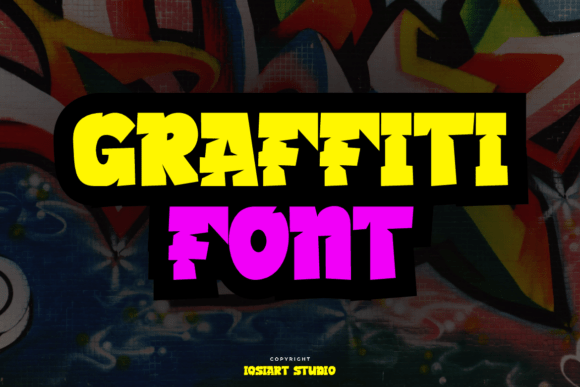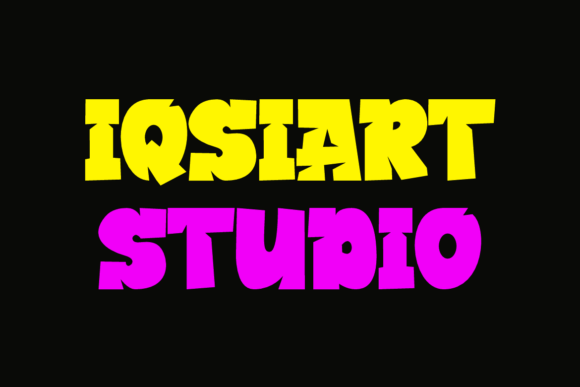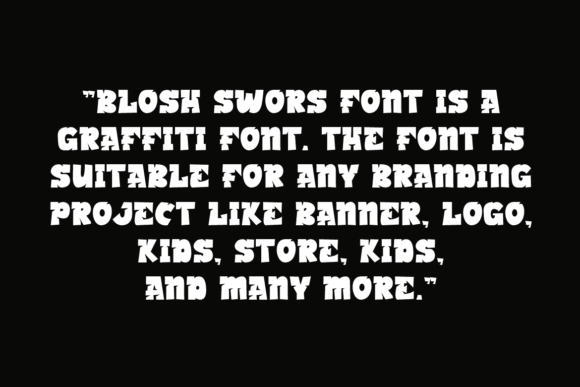
Blosh Swors Font
Blosh Swors is a bold and electrifying graffiti and paint font that bursts with street-style attitude. With jagged edges, chunky shapes, and a hand-sprayed vibe, it’s made to stand out in urban designs, hip-hop posters, apparel, and youth-oriented branding.